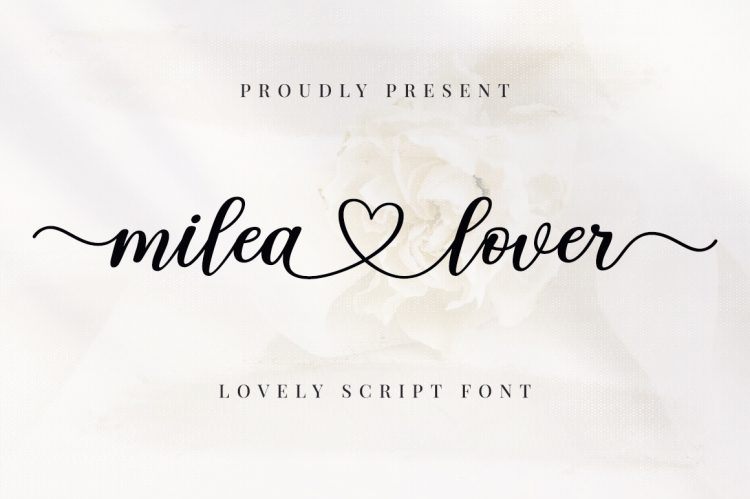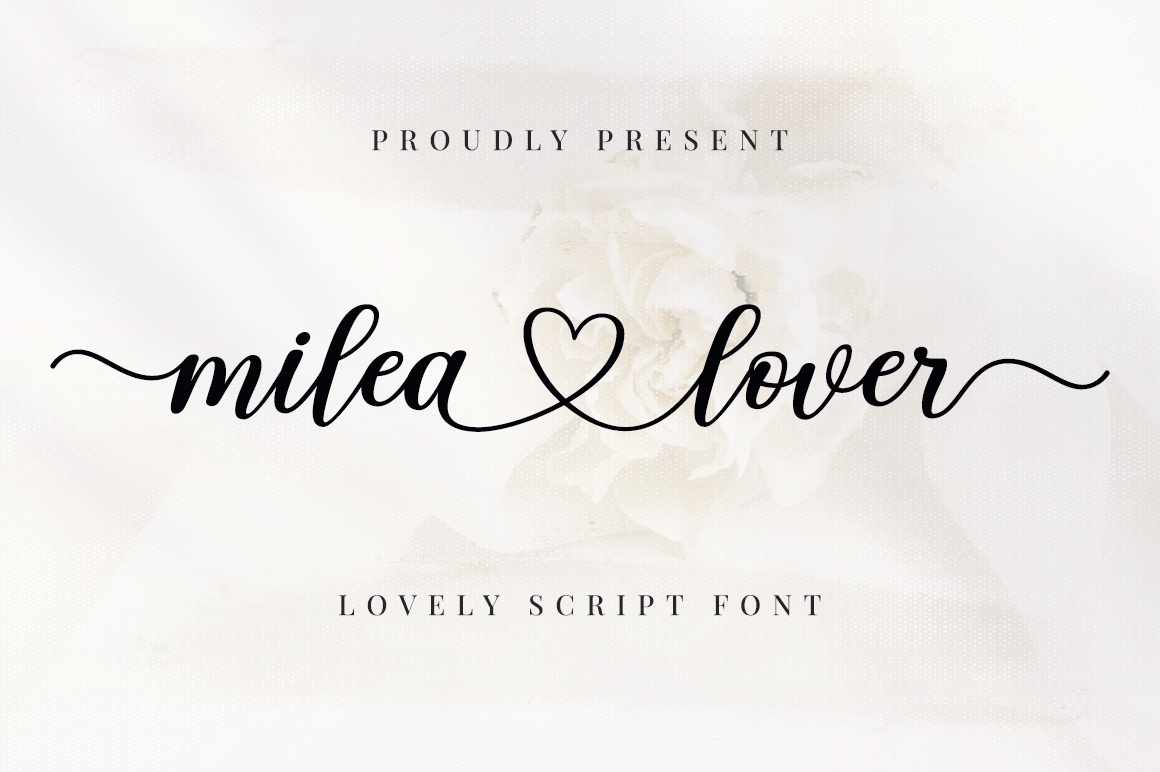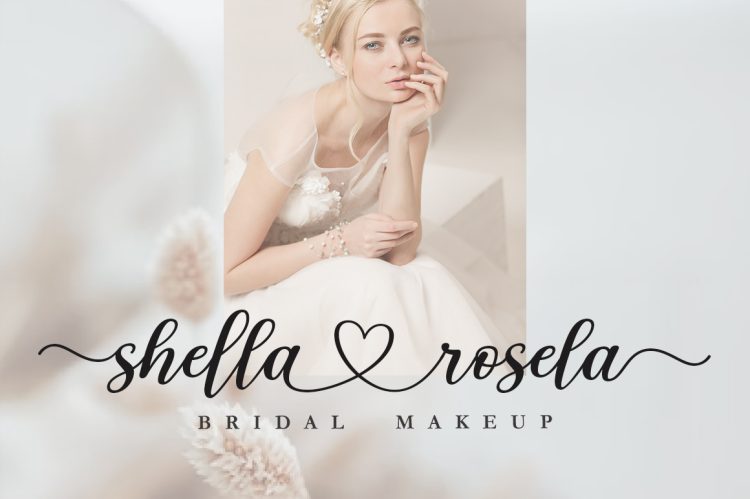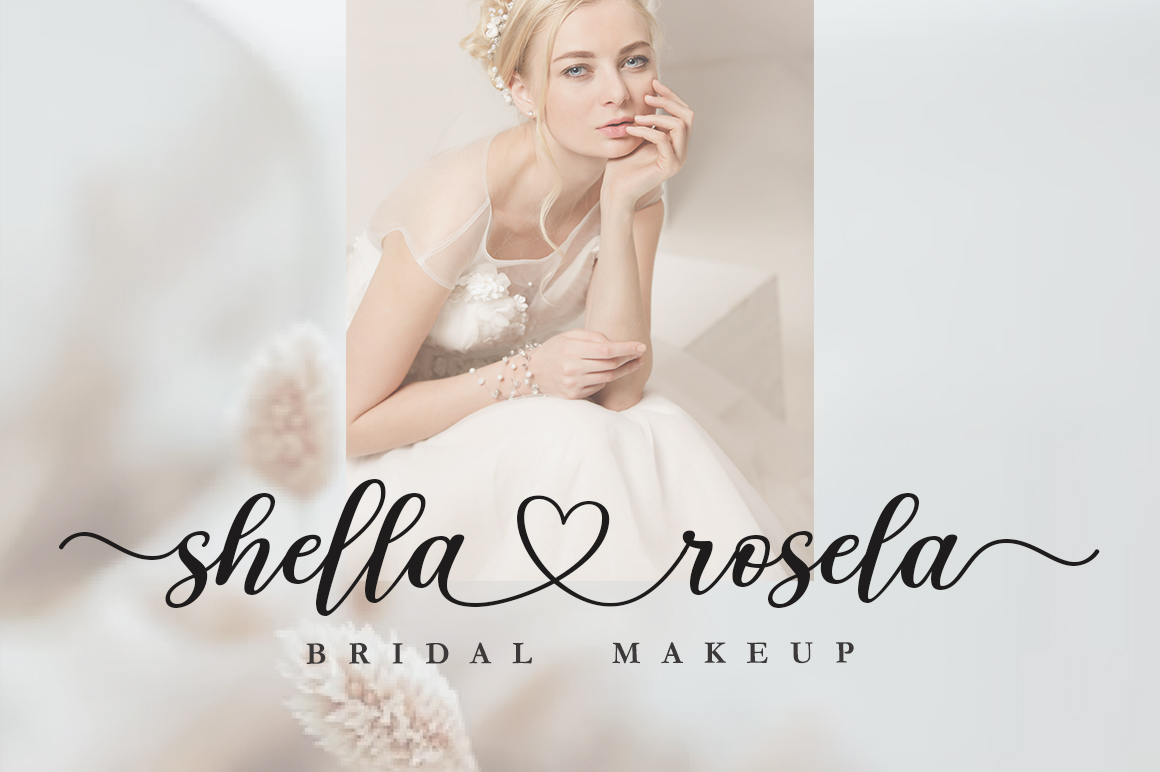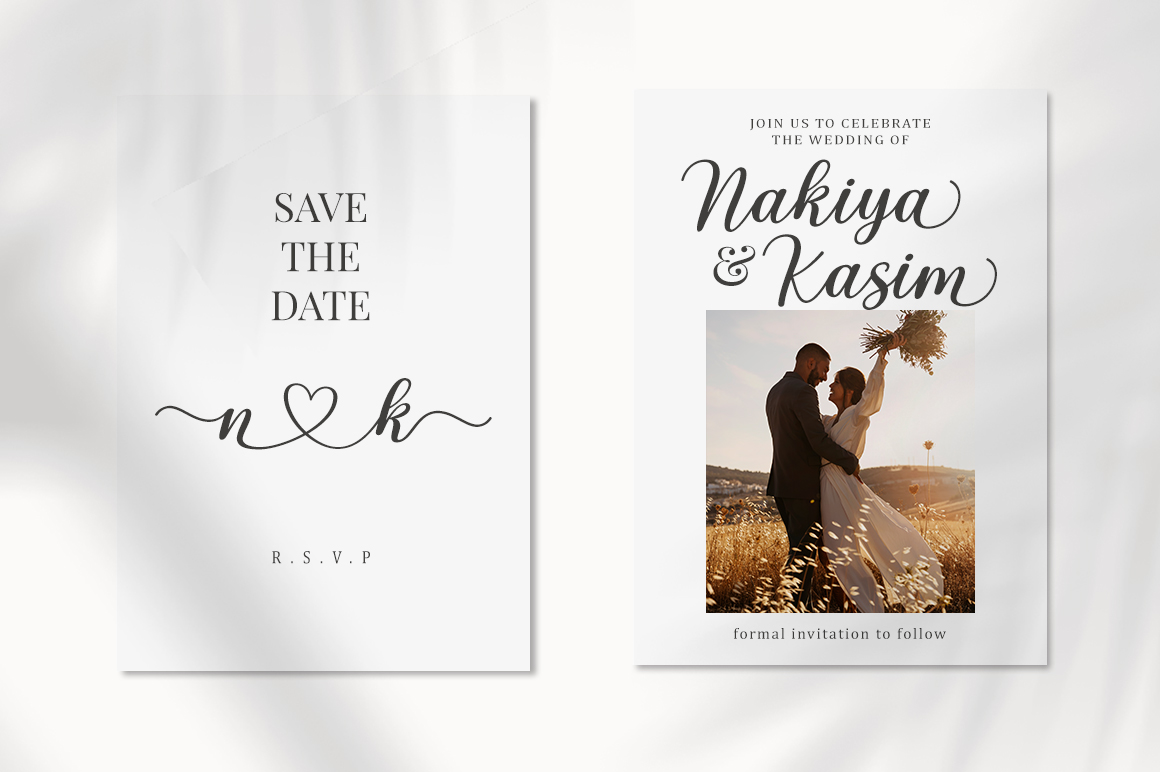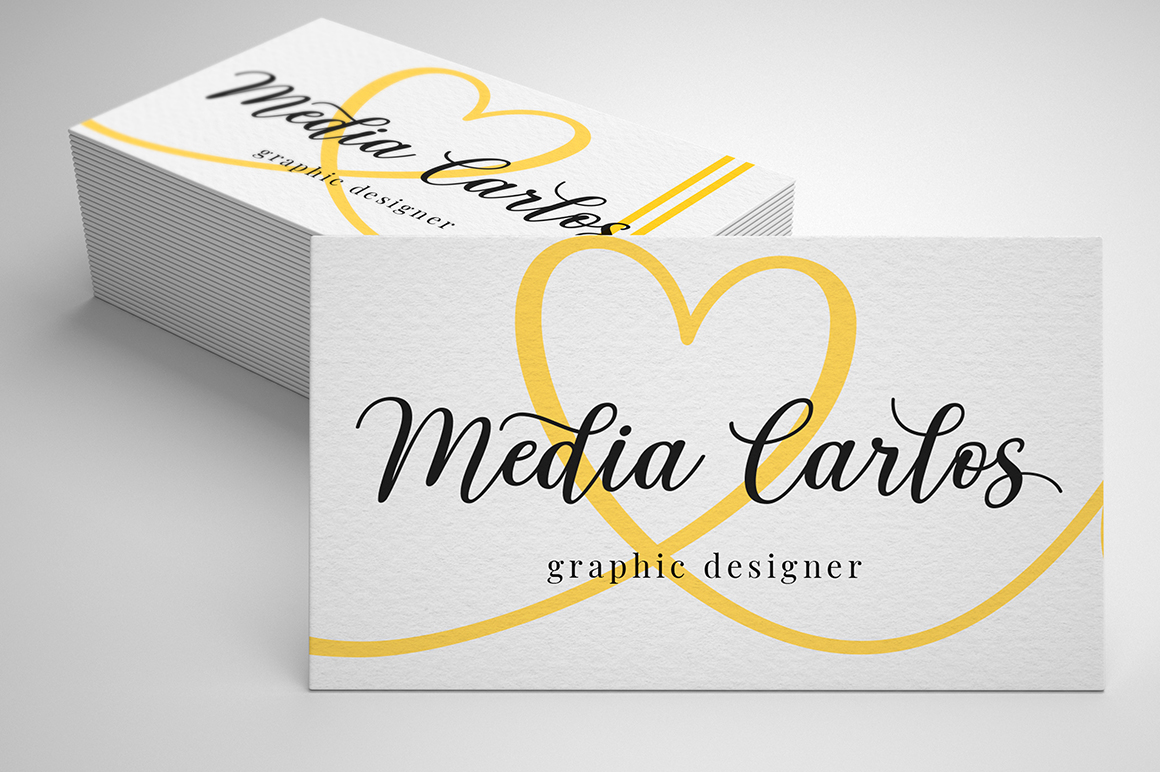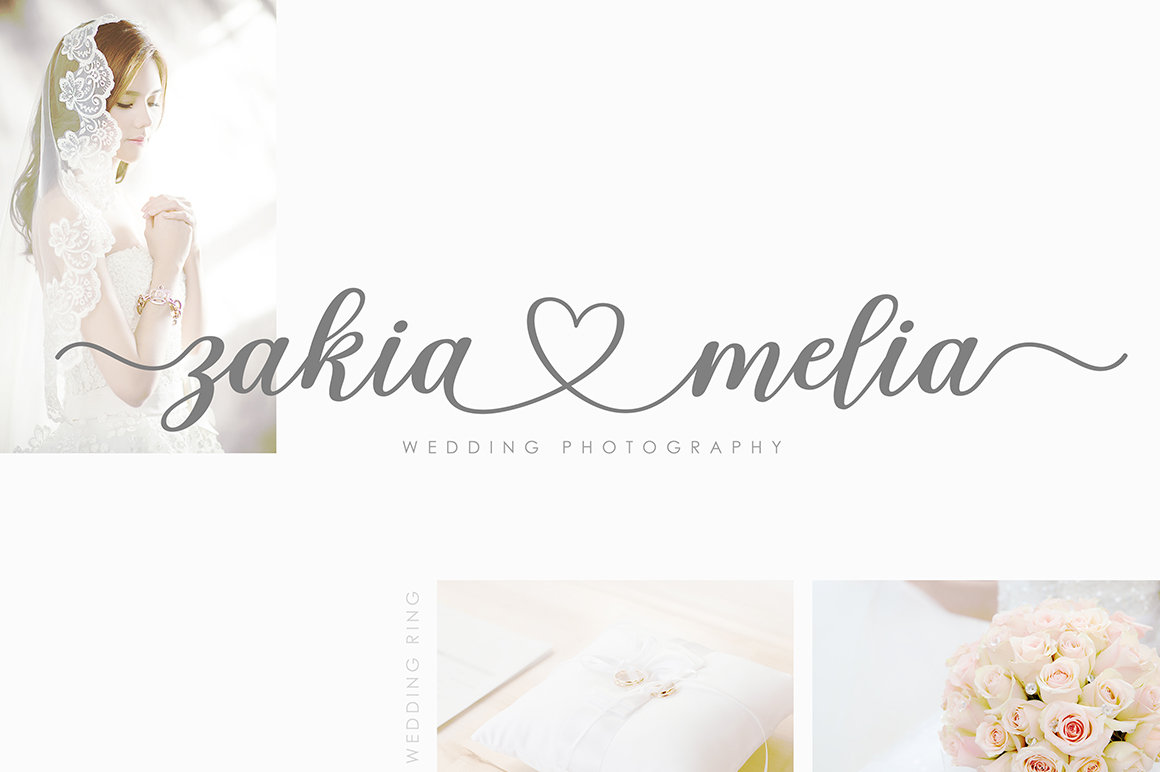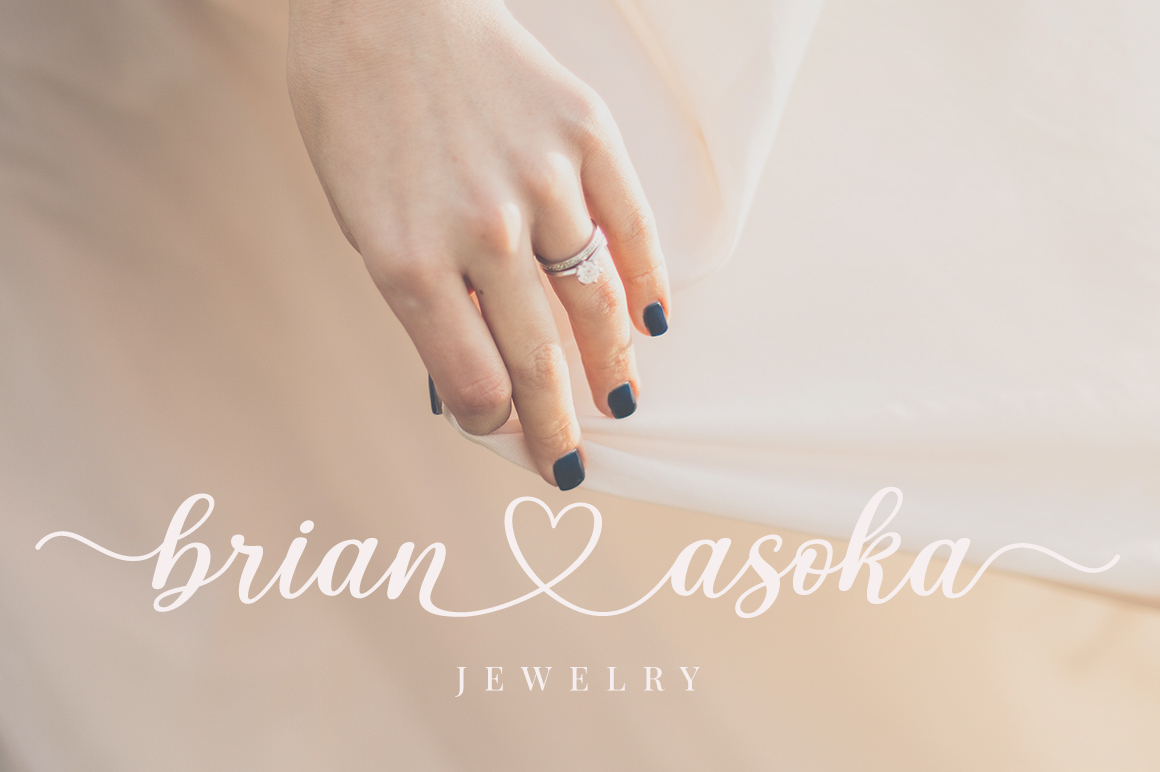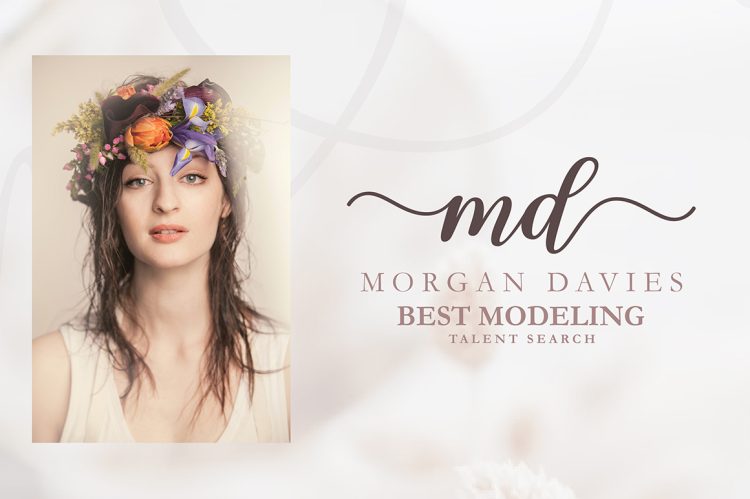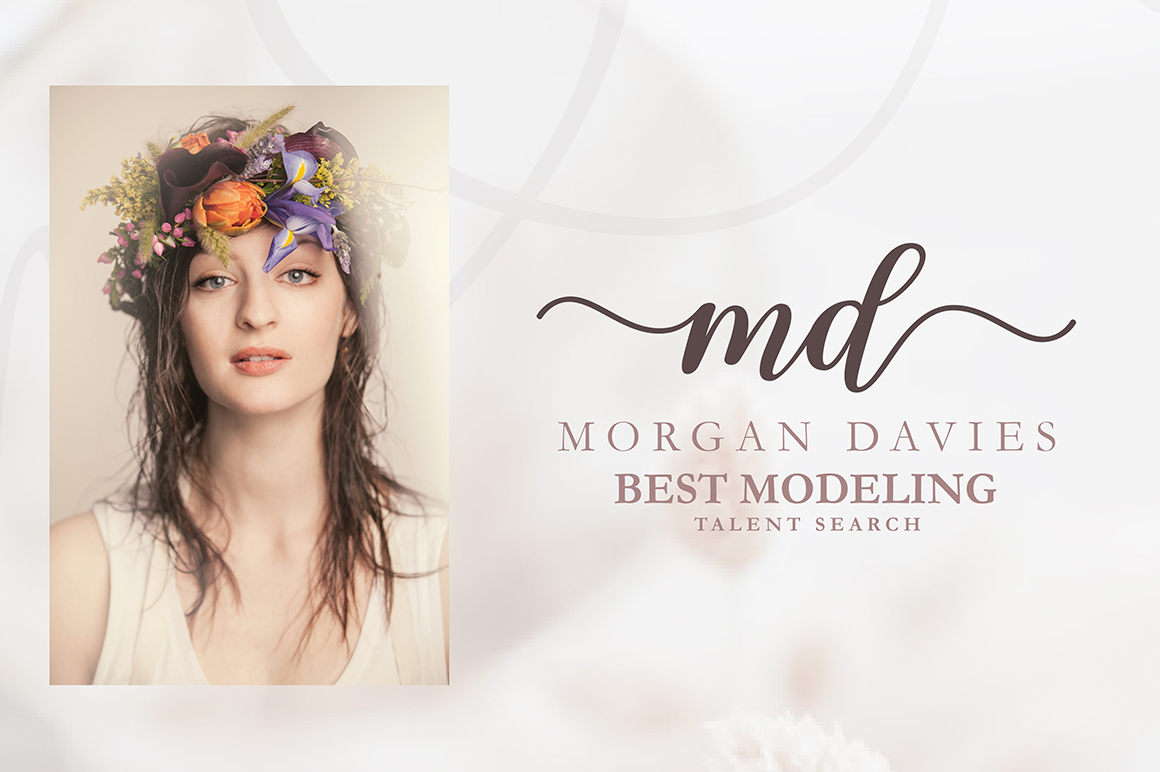
Milea Lover is a beautiful script font with an irregular baseline. Milea Lover comes with a feminine and trendy style that gives a touch of love to your design projects.
Milea Lover looks very beautiful for branding, logo, wedding invitations, greeting cards, fashion, book covers, posters, labels, quotes and other romantic projects.